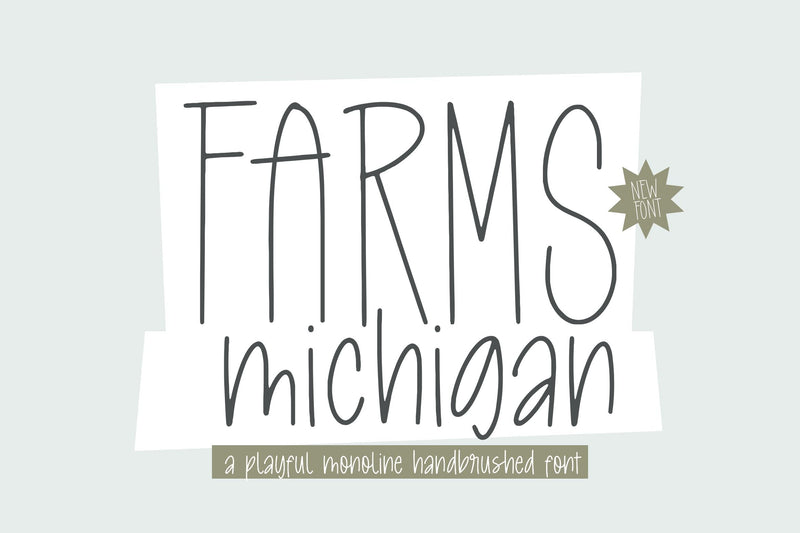
Farms Michigan Playful Monoline
Proudly Present, Farms Michigan Font.
Farms Michigan is a Playful Monoline Font.
Farms Michigan is a tall, skinny font that will complement any script font. It was made with rustic farmhouse signs and a cottagecore aesthetic in mind.